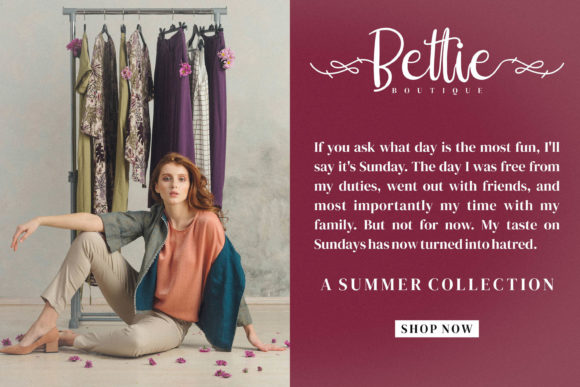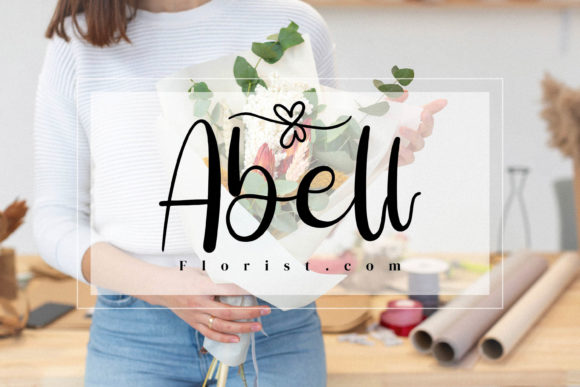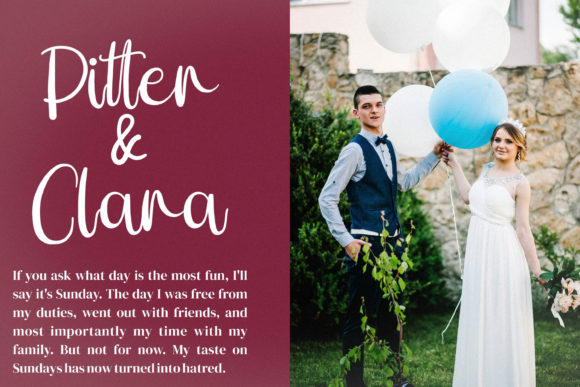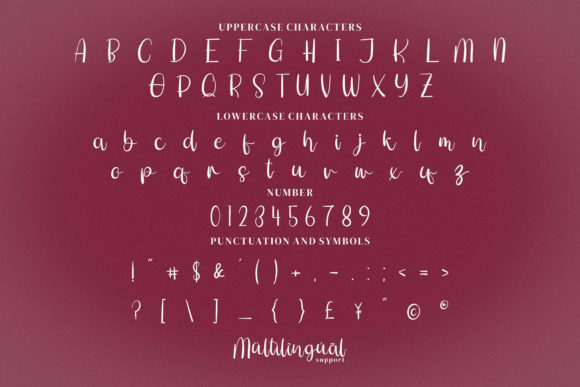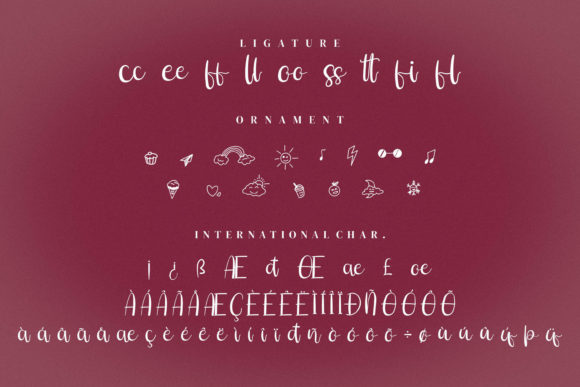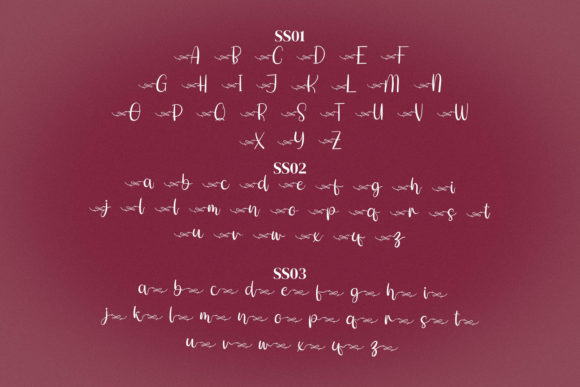
Introduction to Shitti Beauty Font
Shitti Beauty is a unique and elegant handwritten font.
It looks beautiful on a variety of designs requiring a personalized style, such as wedding invitations, thank you cards, weddings, greeting cards, logos and so on .
Key Features of Shitti Beauty Font